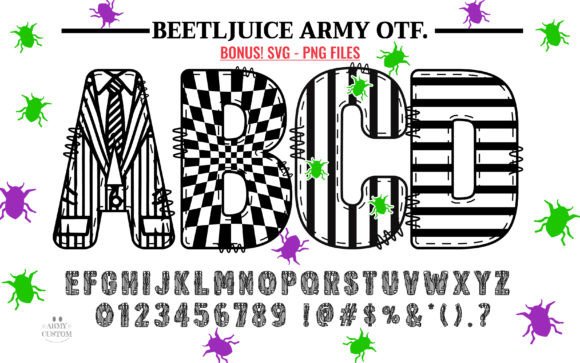
Unleash the Magic of Beetljuice Army Bundle Font and Halloween Doodle Font Color
Are you ready to add a touch of magic to your creative projects? Look no further than the Beetljuice Army Bundle Font and the spellbinding Halloween Doodle Font Color. These two unique tools are designed to help you create standout pieces that will capture the attention of everyone who sees them. In this article, we’ll explore the features and benefits of these exciting creative assets and show you how to make the most of them.
Beetljuice Army Bundle Font: A Unique and Versatile Font
The Beetljuice Army Bundle Font is a one-of-a-kind font that’s perfect for adding a touch of whimsy and fun to your projects. With its bold and playful design, this font is sure to make a statement. Whether you’re working on a arts and crafts project, scrapbooking endeavor, or creating unique stationary and cards, the Beetljuice Army Bundle Font is the perfect choice.
Key Features of the Beetljuice Army Bundle Font:
- Unique and playful design
- Perfect for arts and crafts projects, scrapbooking, stationary, and cards
Halloween Doodle Font Color: Add a Touch of Magic to Your Creations
The Halloween Doodle Font Color is a vibrant and enchanting font that’s sure to add an unmistakable touch of magic to your creations. With its spellbinding design, this font is perfect for enhancing arts and crafts projects, adding unique charm to scrapbooking endeavors, or infusing personality into stationary and cards.
Key Features of the Halloween Doodle Font Color:
- Spellbinding and distinct design
- Perfect for enhancing arts and crafts projects, scrapbooking, stationary, and cards
- Ideal for creating enchanted blog banners and backgrounds or transforming interiors with mesmerizing wall art
Creative Projects with the Beetljuice Army Bundle Font and Halloween Doodle Font Color
The Beetljuice Army Bundle Font and Halloween Doodle Font Color are perfect for a wide range of creative projects. Here are a few ideas to get you started:
Project Ideas:
- Arts and crafts projects, such as handmade cards and gift tags
- Scrapbooking endeavors, such as creating unique and personalized photo albums
- Stationary and cards, such as custom invitations and greeting cards
- Blog banners and backgrounds, such as creating eye-catching headers and footers
- Wall art, such as creating mesmerizing and enchanting designs for your home or office
In conclusion, the Beetljuice Army Bundle Font and Halloween Doodle Font Color are two unique and exciting creative assets that are sure to add a touch of magic to your projects. With their bold and playful designs, these fonts are perfect for a wide range of creative endeavors. Whether you’re working on arts and crafts projects, scrapbooking endeavors, or creating unique stationary and cards, these fonts are sure to make a statement.